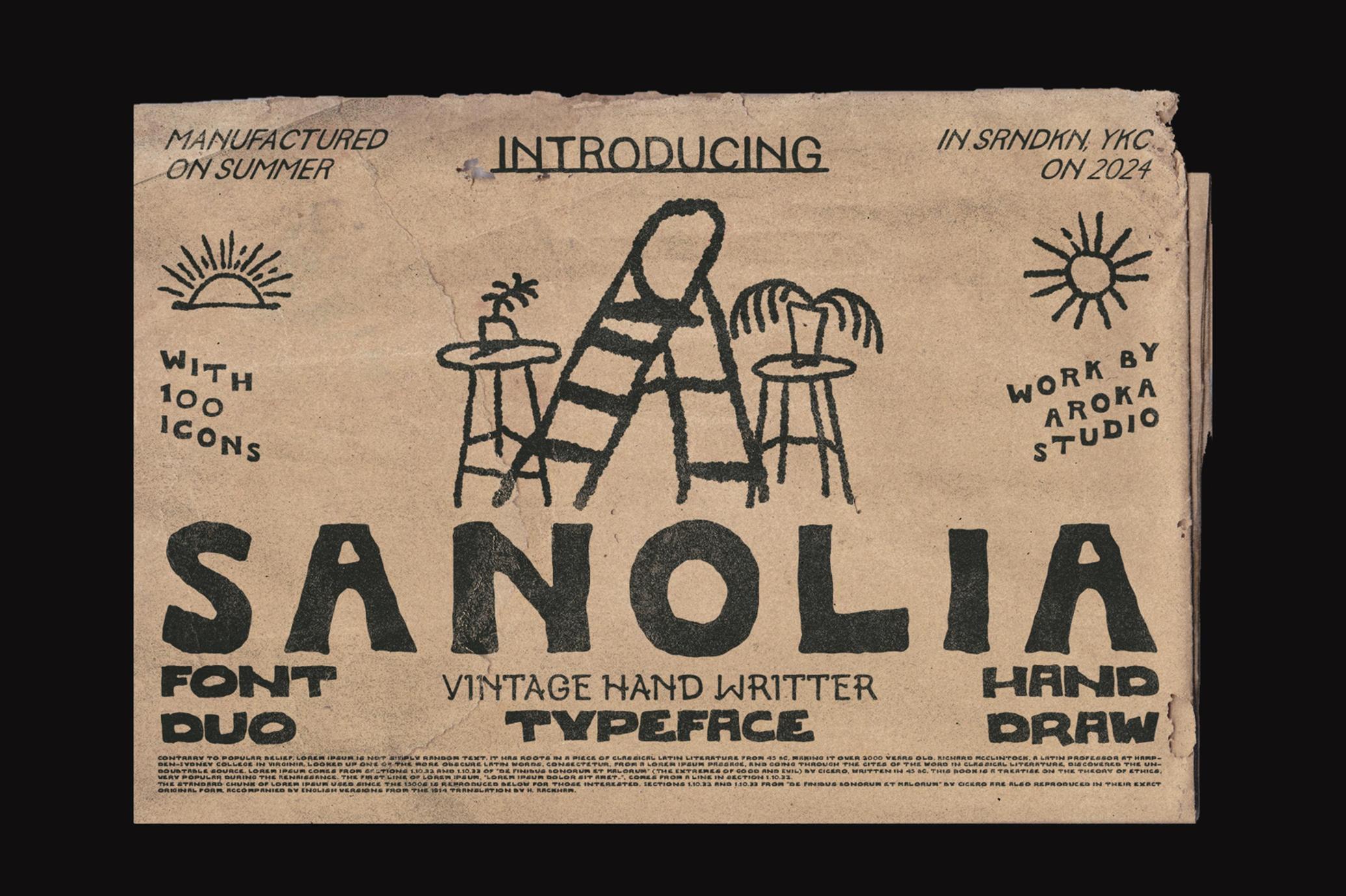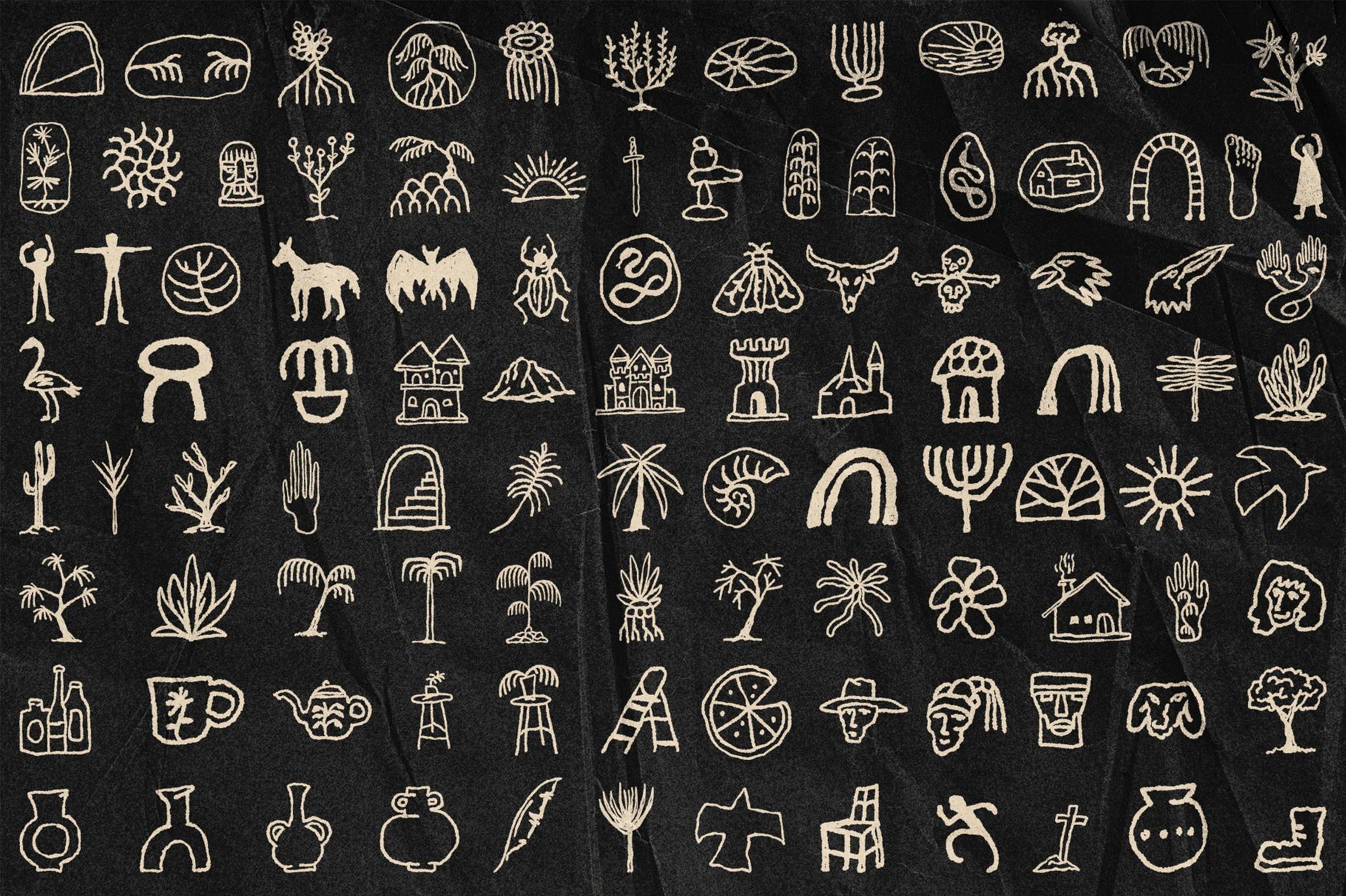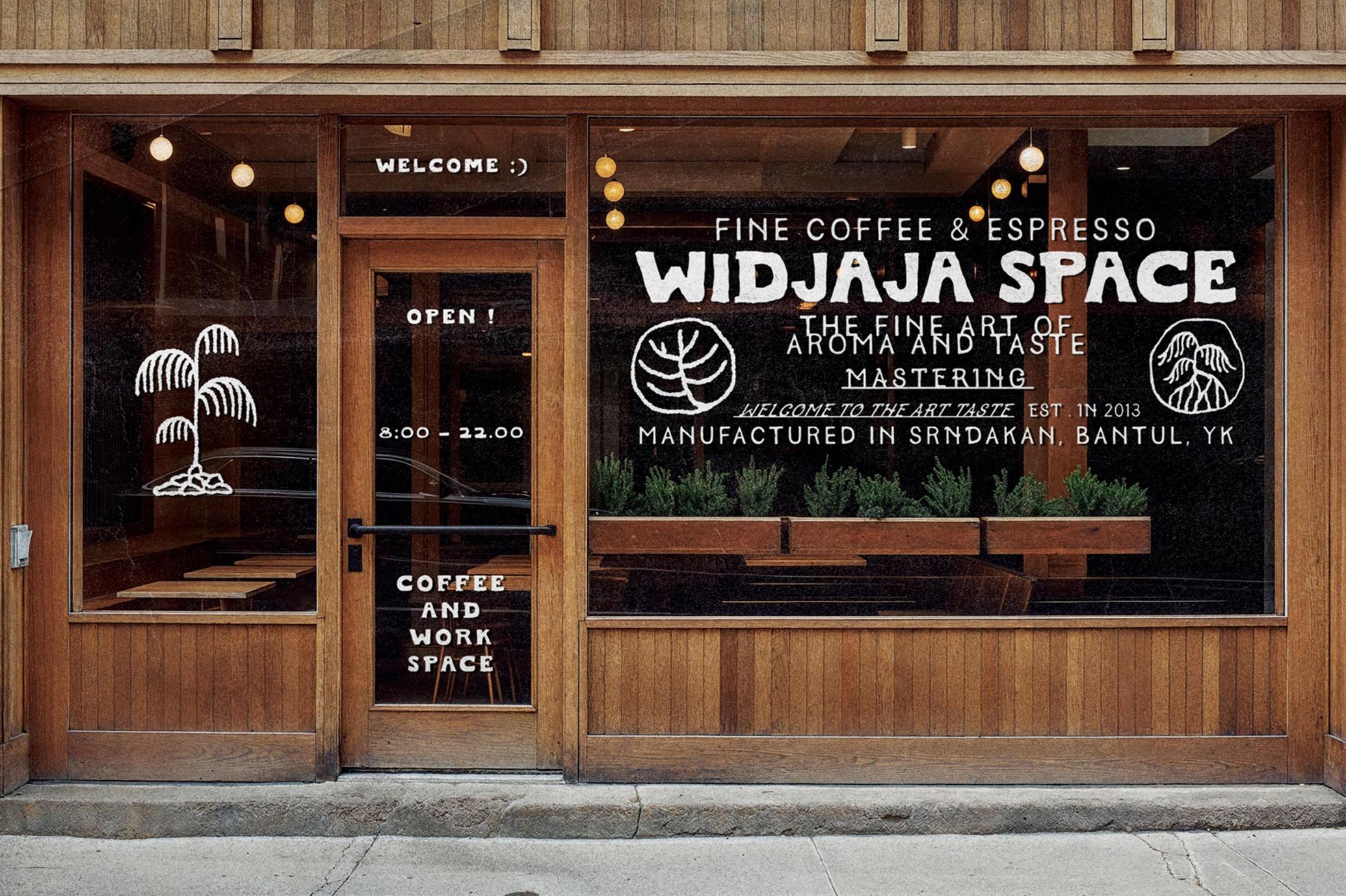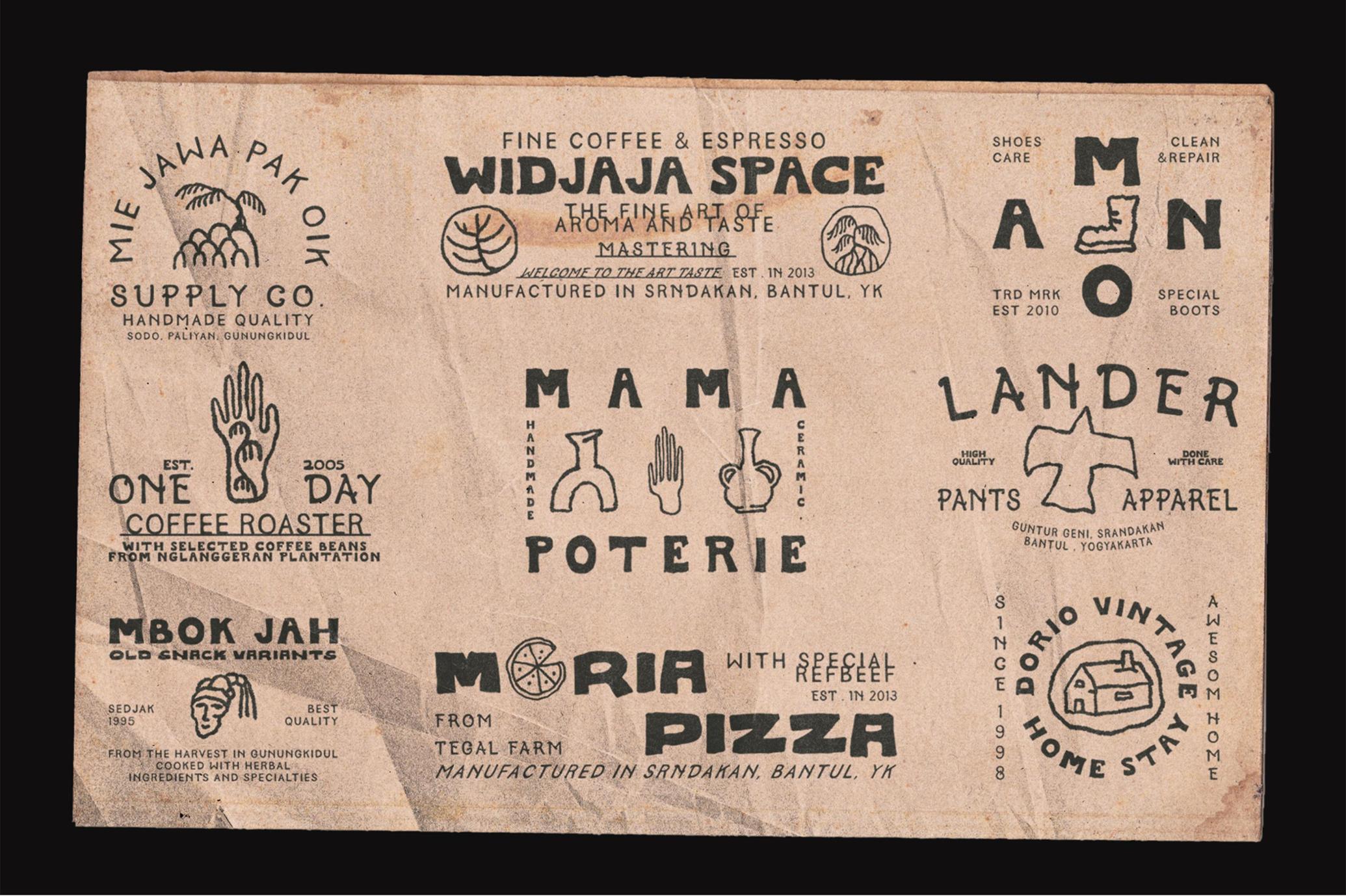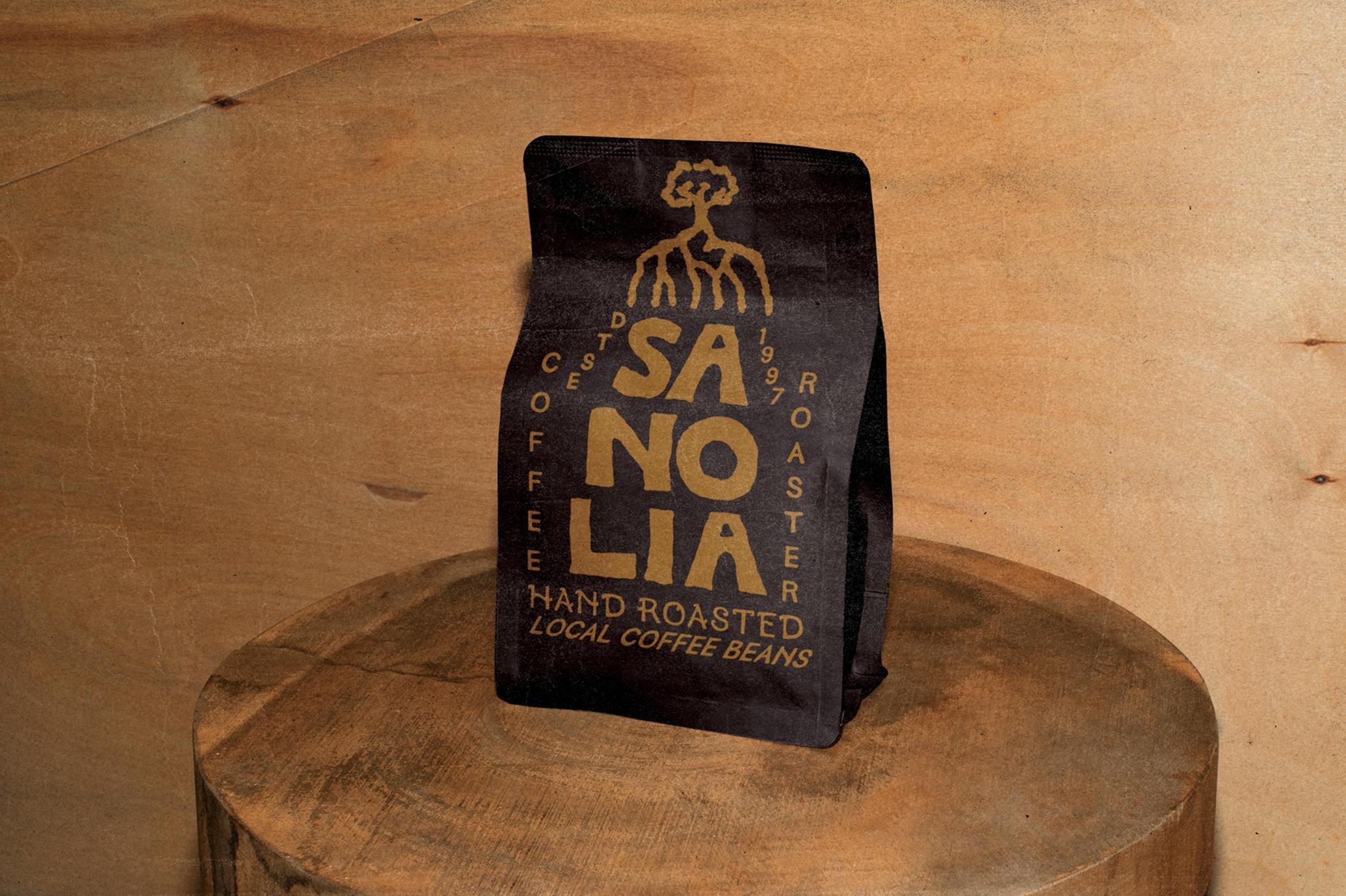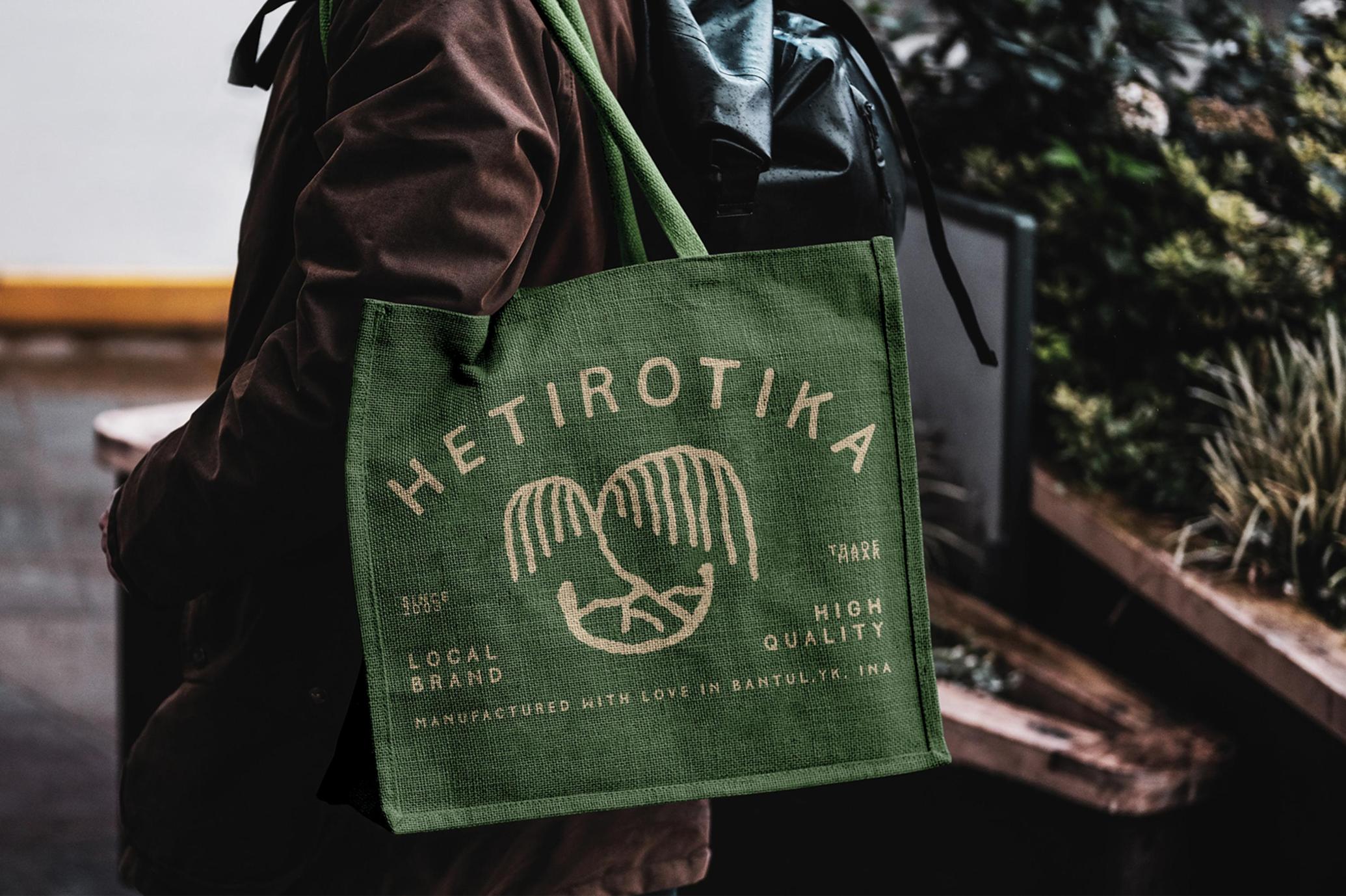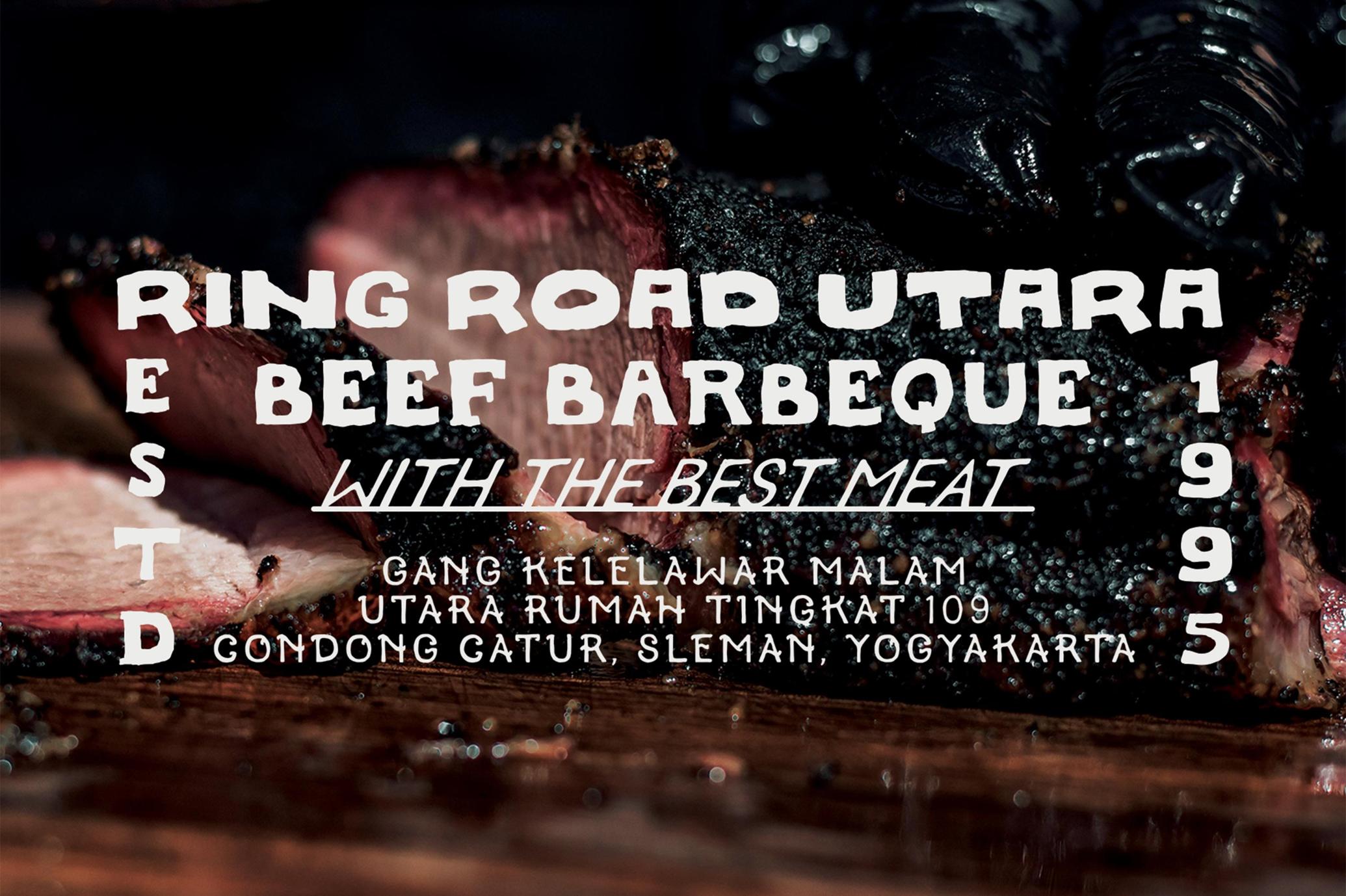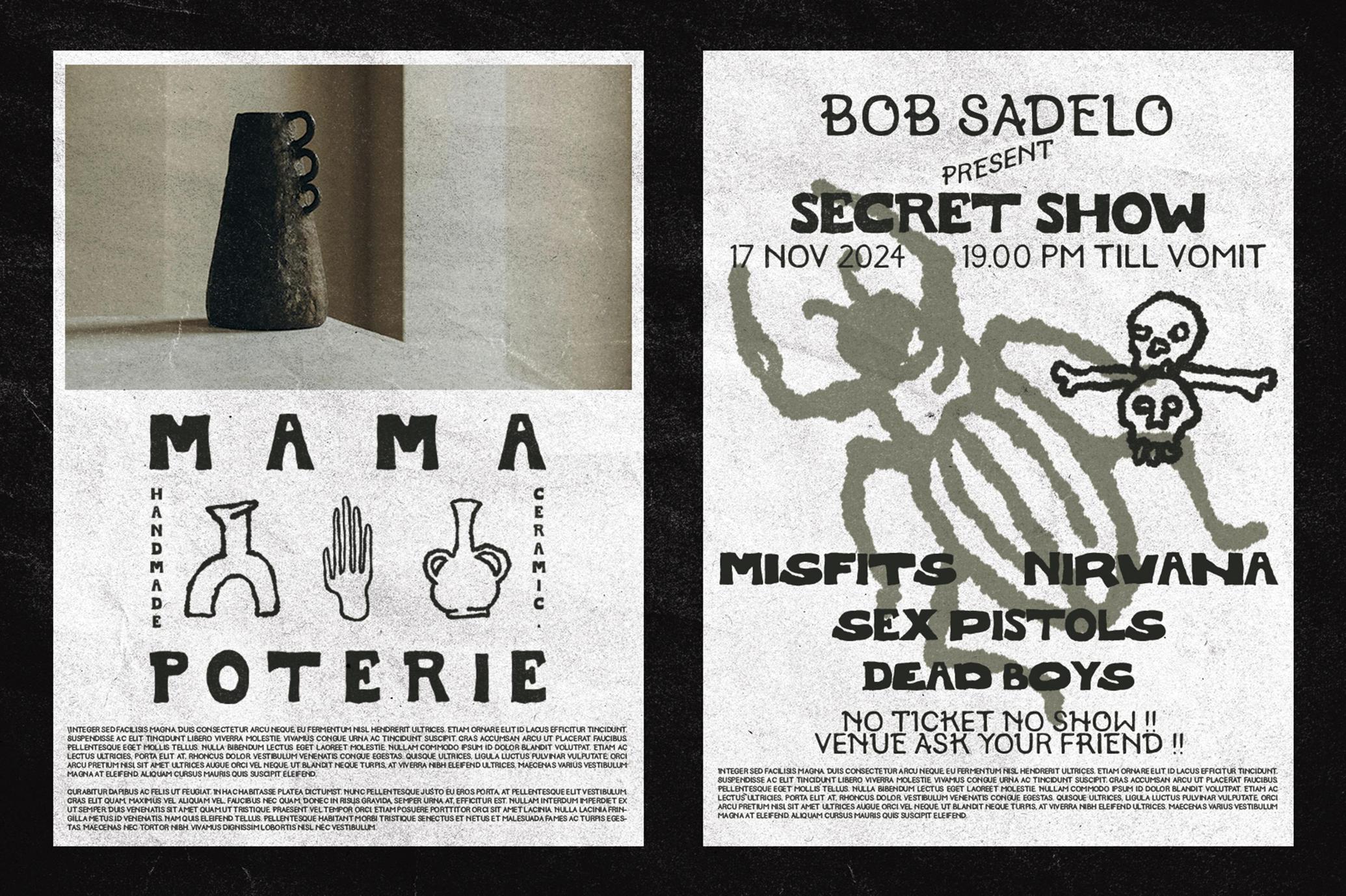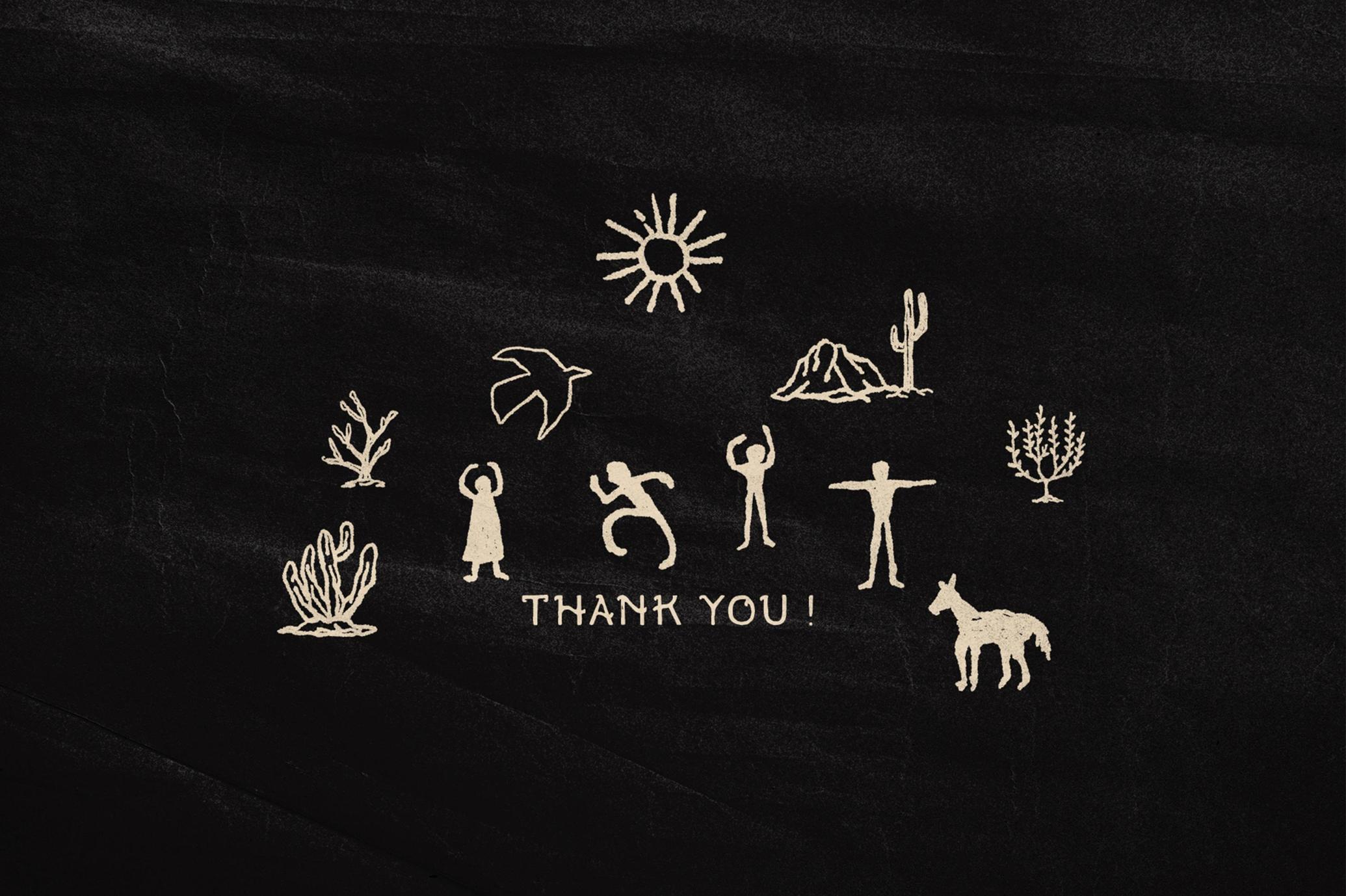
Sanolia Hand-Drawn Typeface
Sanolia font duo brings loose, inky forms and a printed feel with edges that wobble in the right places. Two complementary styles — one agile and handwritten, one chunky and stamped — create an easy hierarchy for headlines, badges, and short text blocks.
Both styles are in an all-caps system. Uppercase and lowercase sets feature different drawings for mix-and-match texture, supported by numerals, punctuation, and multilingual coverage. The package also includes 100 bonus icons drawn in the same line for badges, stickers, and small illustrations.
Use it for coffee roaster branding, ceramic studio labels, farmers’ market posters, menu boards, storefront glass lettering, apparel tags, outdoor signage, album covers, editorial titles, and social graphics.